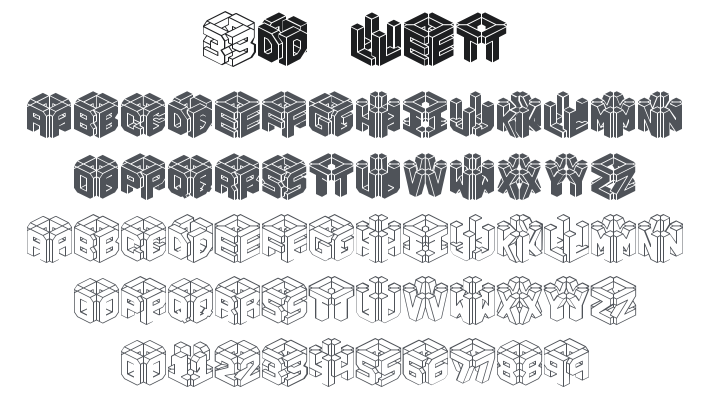
3D LET Font
About 3D LET
3D Let is a bold, extruded three-dimensional block typeface with thick letterforms casting strong drop-shadow depth — chunky, playful geometry with a retro-arcade energy. Perfect for game logos, toy branding, children's media titles, and any design needing loud, eye-catching dimensional pop.